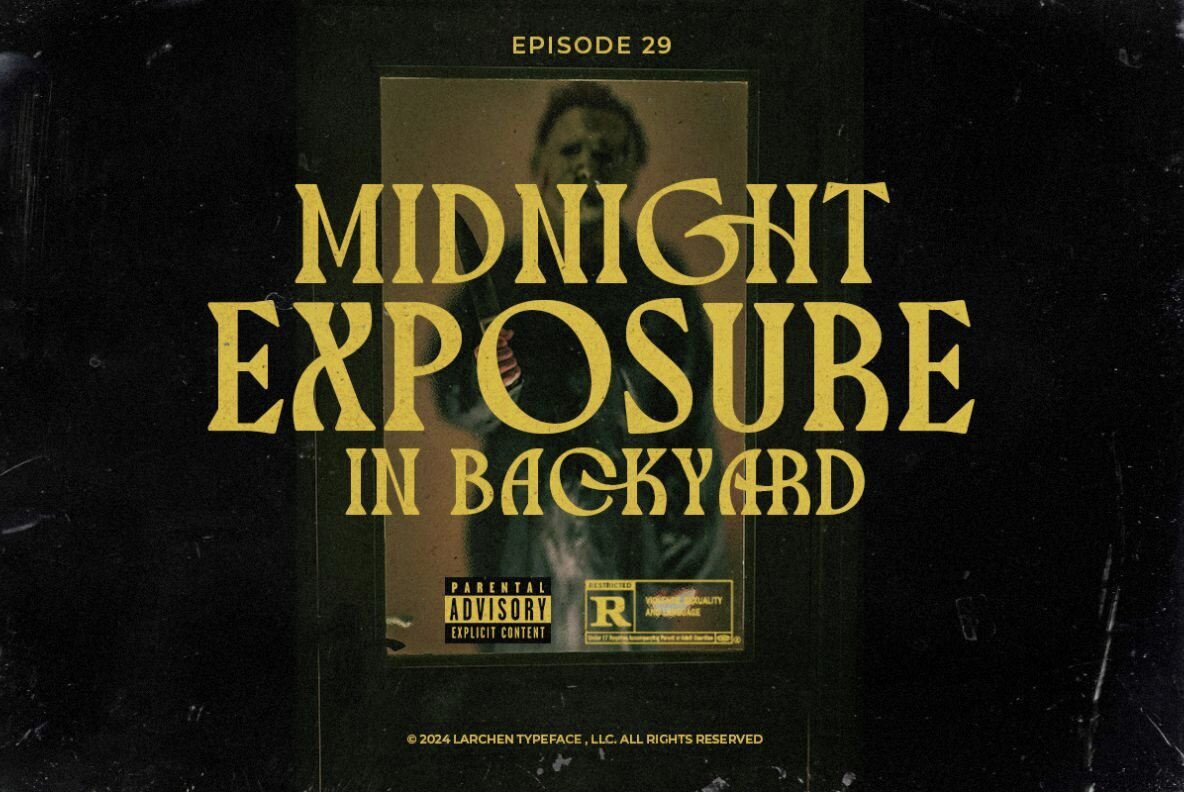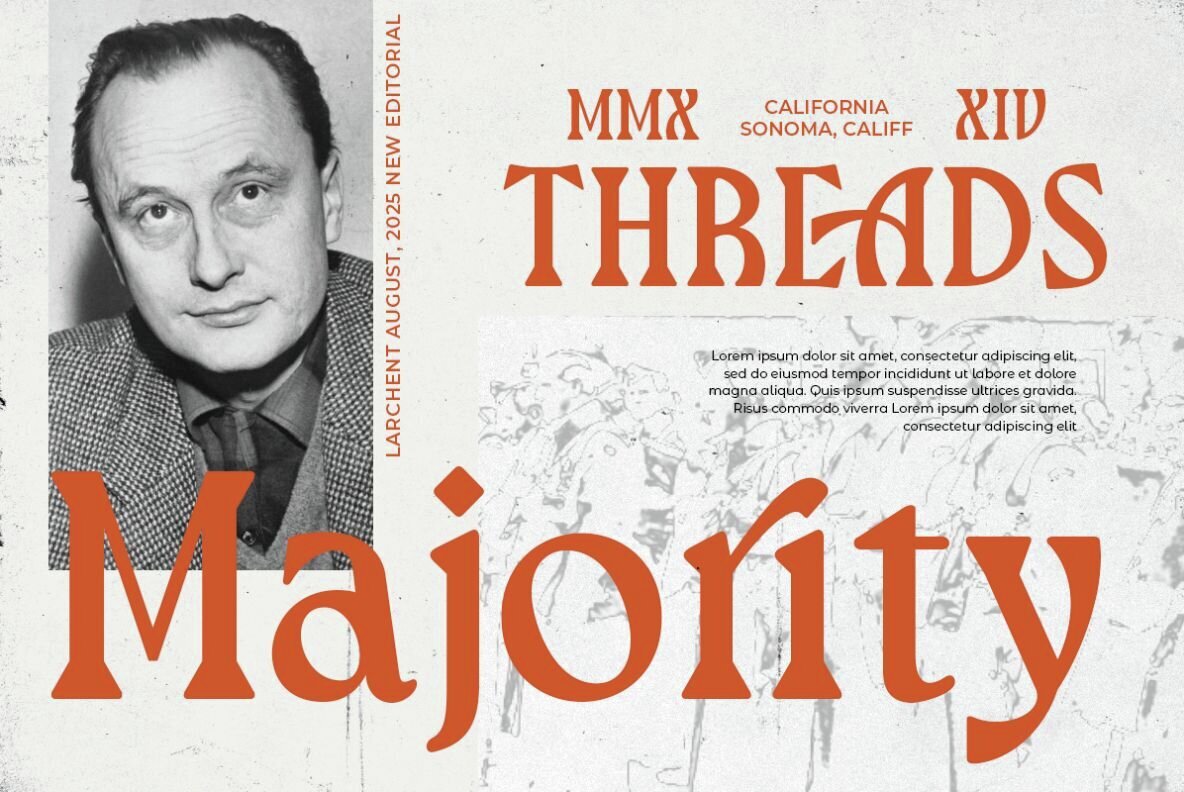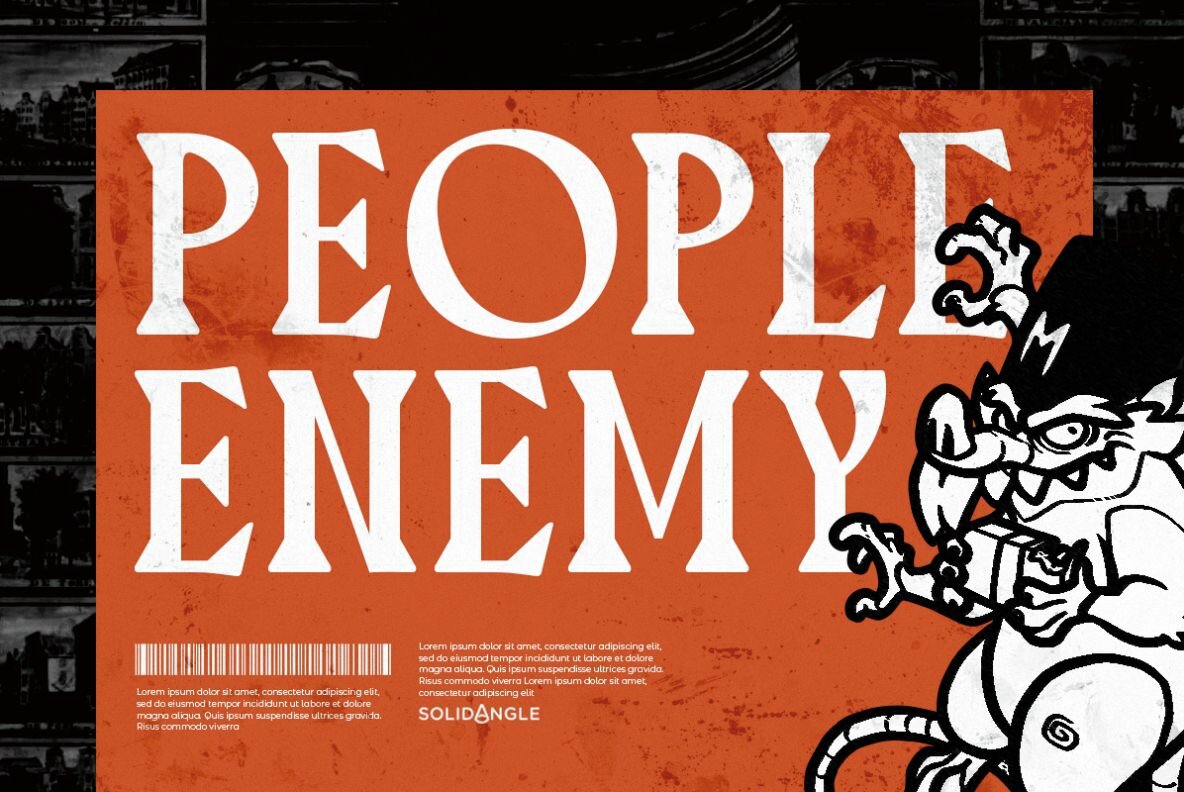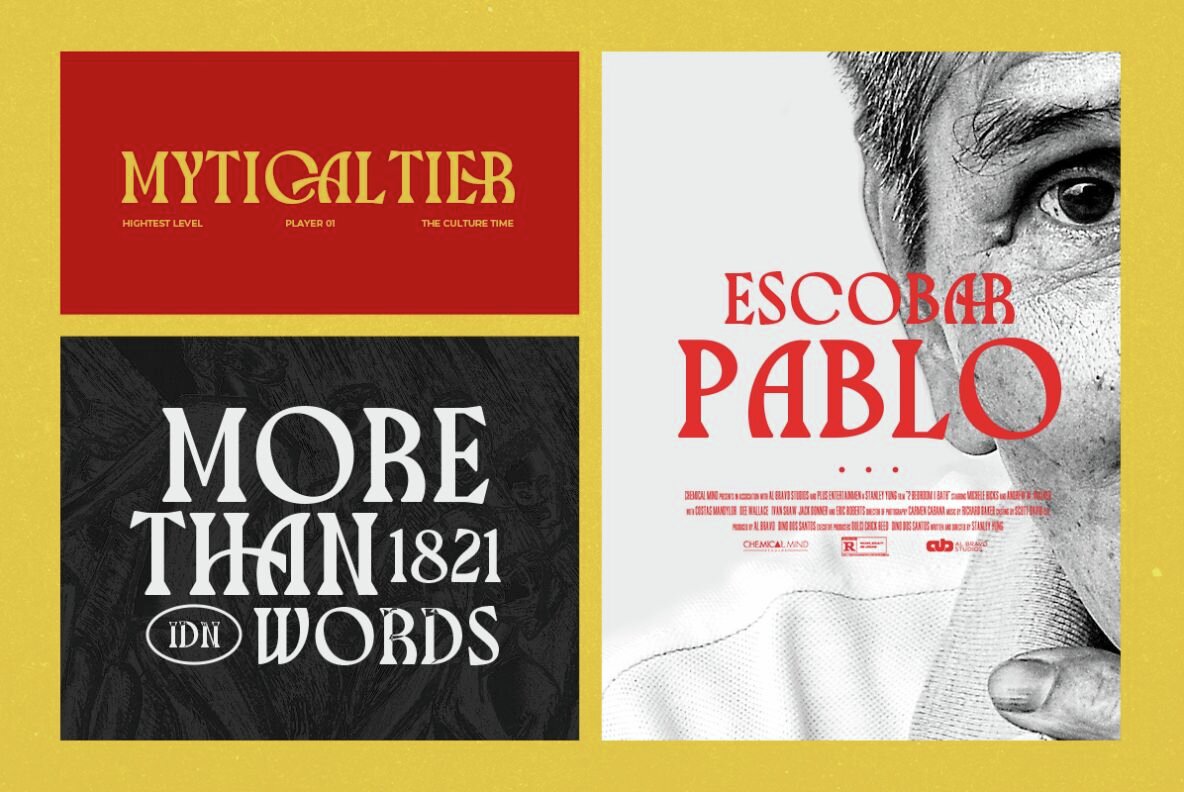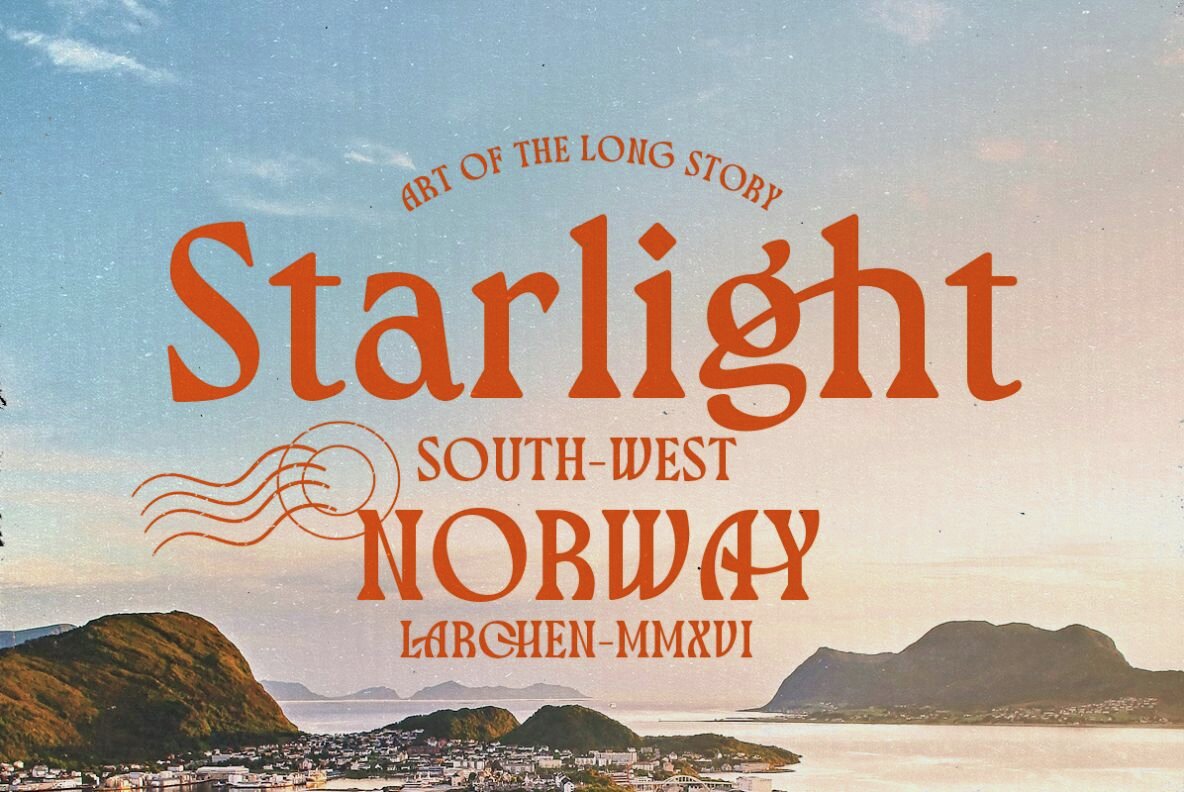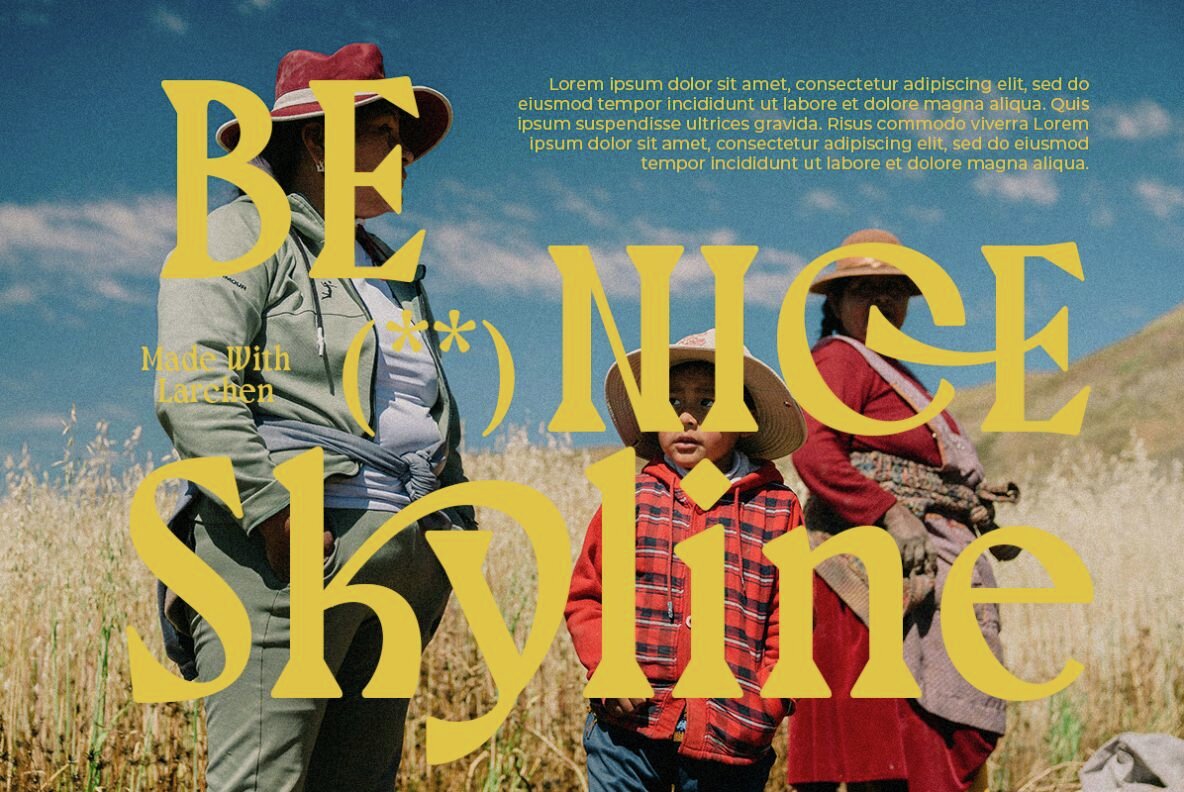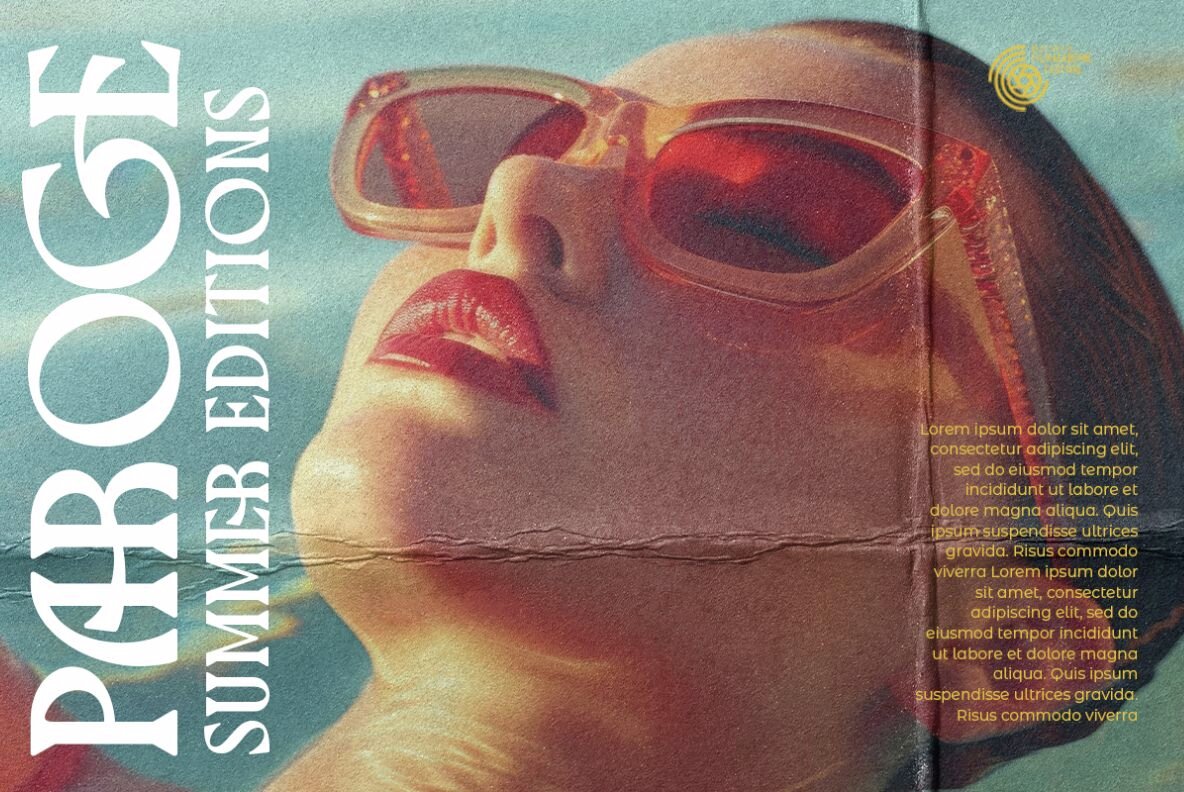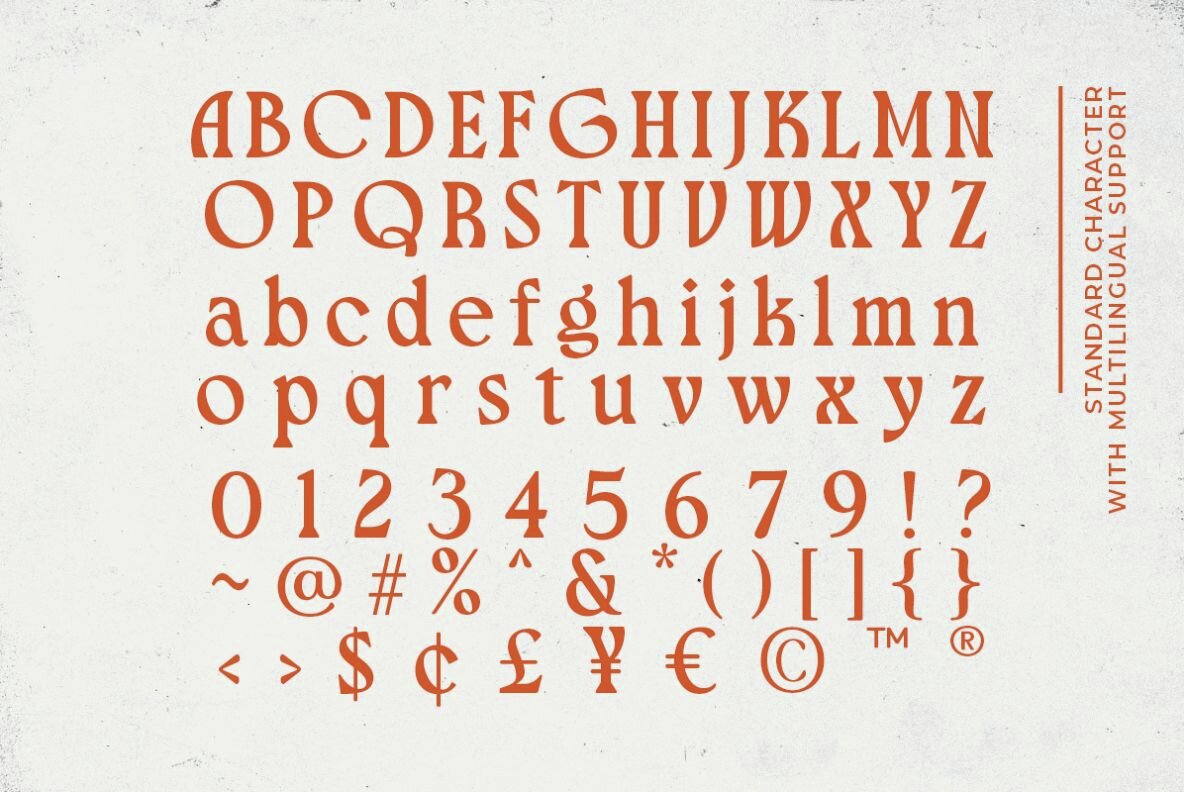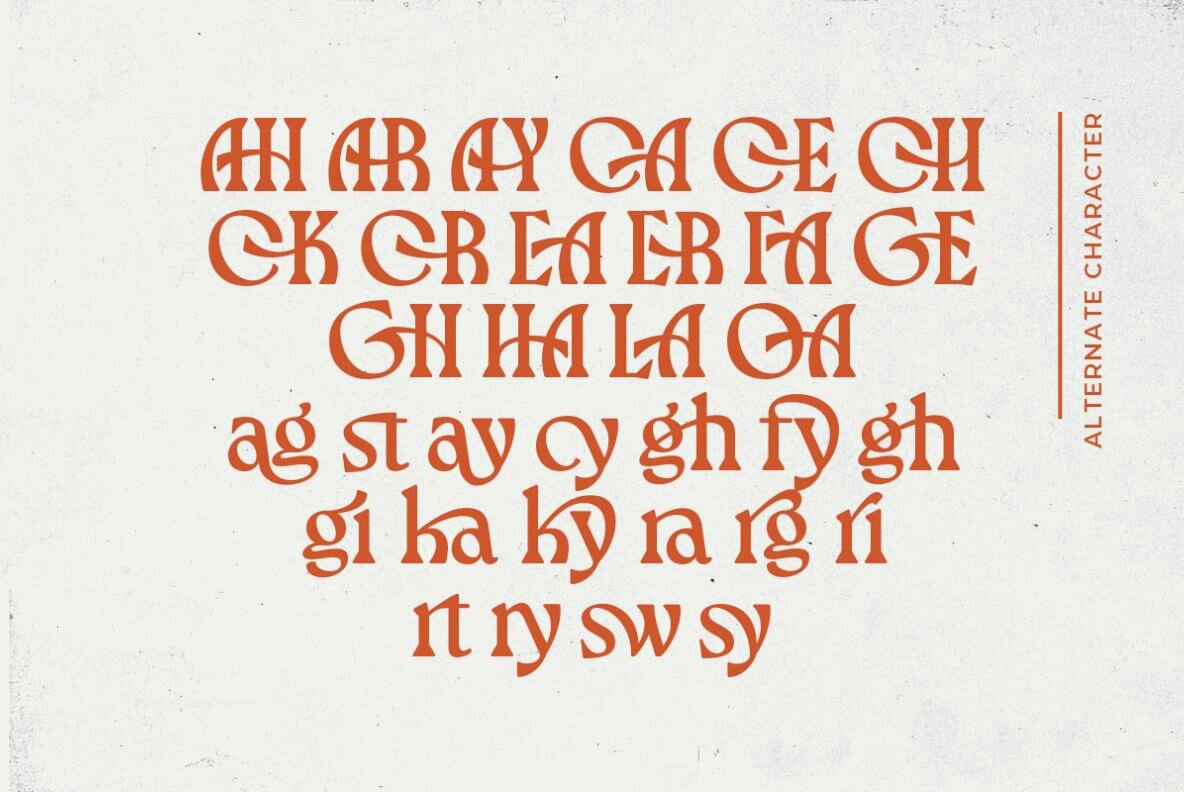
Larchen Font
Larchen is a ligature serif with bold and strong style. Comes with unique looks, this font will make your project more stand out and stunning. With stylish ligatures that you can use to step up your designs level. You can use this font for branding, poster, logotype, and more. Larchen also support multi language.